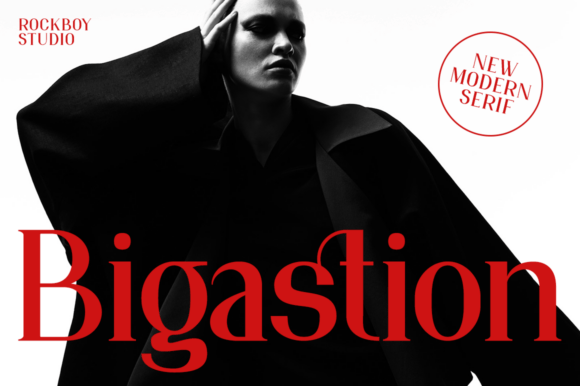
The Bigastion Font: A Designer’s New Best Friend?
I’ll never forget the time I was working on a project for a high-end fashion brand, and I just couldn’t find the right font to match their sleek and sophisticated vibe. I spent hours scouring the internet, trying out font after font, but nothing seemed quite right. That was until I stumbled upon Bigastion – an elegant, thin lettered, and distinct serif font that instantly elevated my design to the next level. In this article, I’ll share my experience with Bigastion, and explore its features, uses, and alternatives.
What I Love About Bigastion ✨
• ✅ Elegant and sophisticated design that’s perfect for high-end brands or luxury products
• ✅ Thin lettering that adds a touch of refinement to any design
• ✅ Distinct serif details that give the font a unique personality
• ✅ Highly versatile and can be used for a wide range of designs, from logos to headings and body text
• ⚠️ Limited use for body text due to its thin lettering, which can be difficult to read in large blocks
• ⚠️ May not be the best choice for designs that require a bold or attention-grabbing font
4. Explore the font’s OpenType features, such as glyphs and stylistic alternates, to add more depth and character to your design
Bigastion is an OpenType font that offers a range of advanced typography features, including glyphs and stylistic alternates. These features allow you to customize the font to suit your design needs and add more personality to your text. To access these features, follow these steps:
The Story Behind Bigastion
Bigastion was designed by a team of typographers who wanted to create a font that would be both elegant and versatile. Inspired by classic serif fonts, they aimed to create a modern and refined design that would be suitable for a wide range of uses. The result is a font that’s both sophisticated and approachable, making it perfect for designers who want to add a touch of luxury to their work.
Q: What is Bigastion font?
A: Bigastion is an elegant, thin lettered, and distinct serif font that’s suitable for a wide range of designs.
Q: What type of designs is Bigastion best suited for?
A: Bigastion is best suited for designs that require a touch of elegance and sophistication, such as luxury brands, high-end products, or refined designs.
Q: Can I use Bigastion for body text?
A: While Bigastion can be used for body text, its thin lettering may make it difficult to read in large blocks. It’s best used for headings, titles, or short paragraphs.
Q: Is Bigastion a OpenType font?
A: Yes, Bigastion is an OpenType font that offers advanced typography features, including glyphs and stylistic alternates.